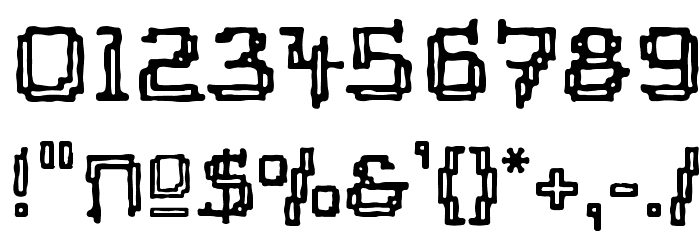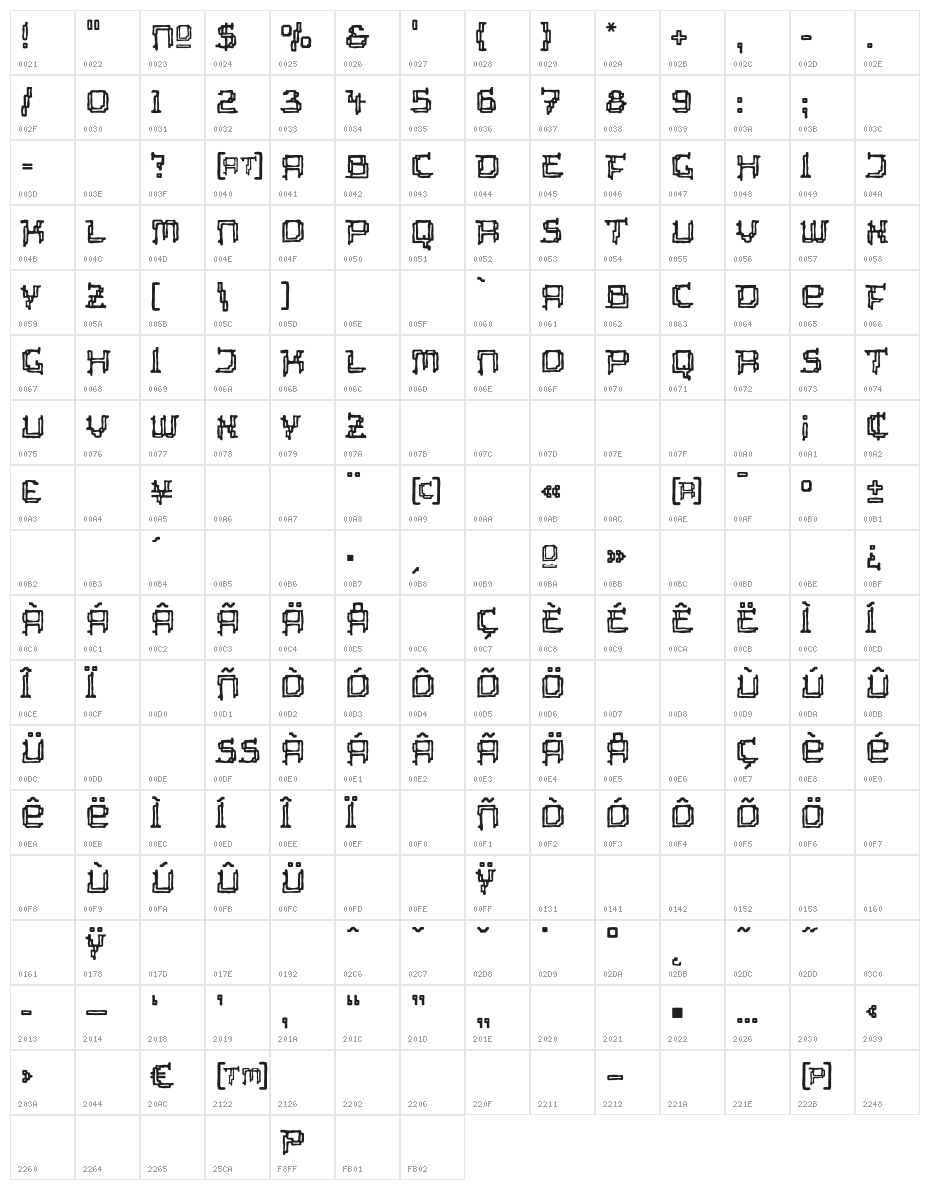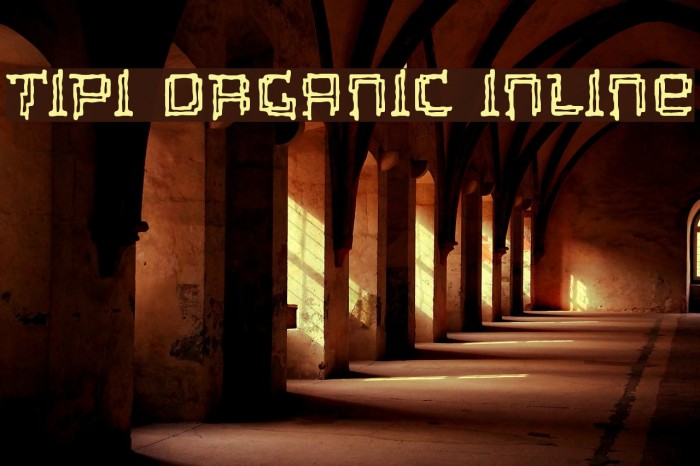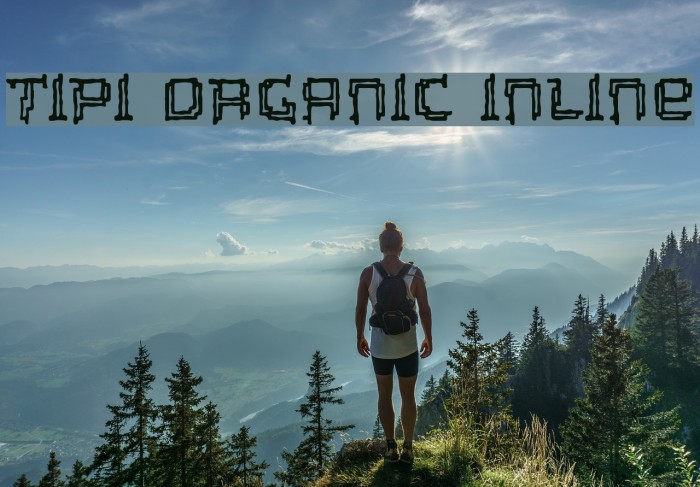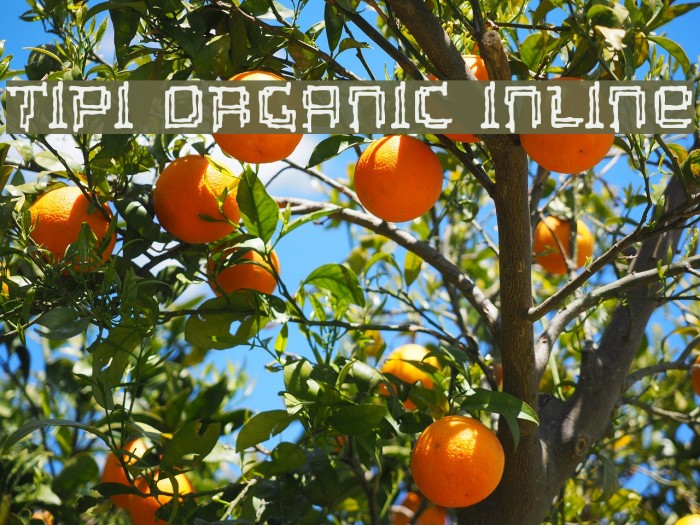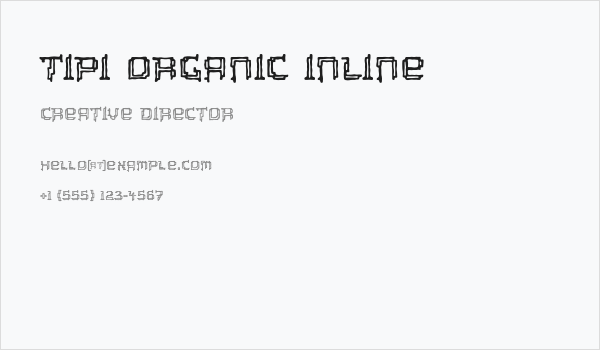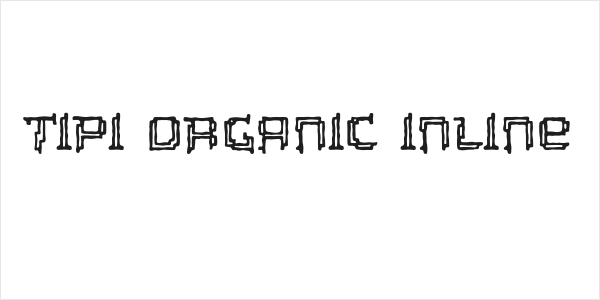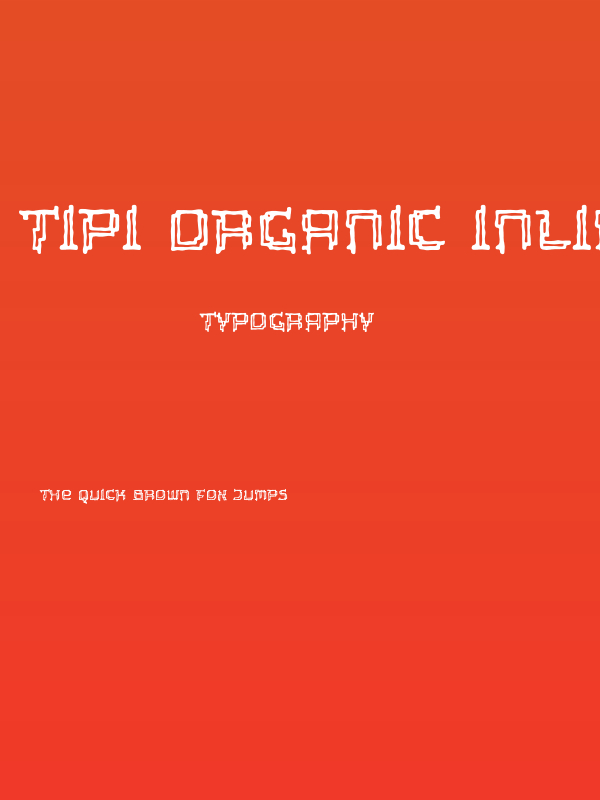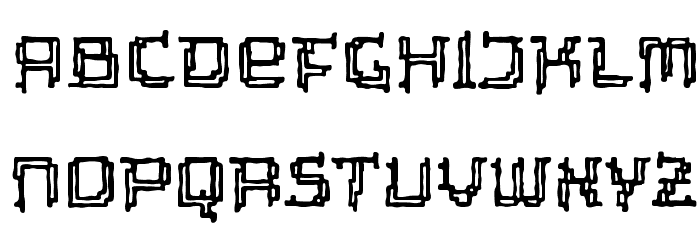
Tipi Organic Inline Font
Tipi Organic Inline Description
This font features a unique, organic inline design that combines a hand-drawn aesthetic with a structured form. The characters have a rugged, textured appearance, reminiscent of natural elements like wood or stone. Each letter is outlined with a bold, irregular stroke, giving it a distinct, earthy feel. The uppercase and lowercase letters maintain a consistent style, while the numbers and special characters integrate seamlessly into the overall design. This font's organic nature makes it stand out, offering a creative and artistic vibe.
| Proposed Projects | Ideal for eco-friendly branding, nature-themed posters, artistic projects, and unique packaging designs. |